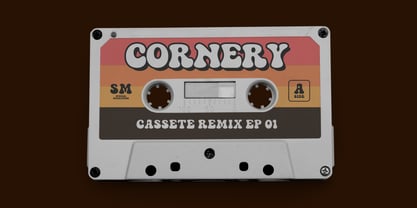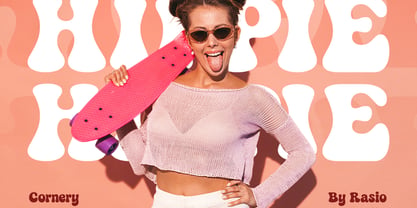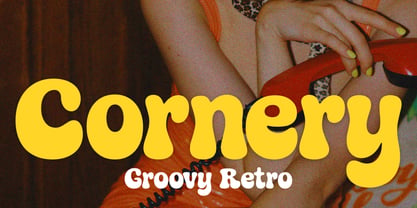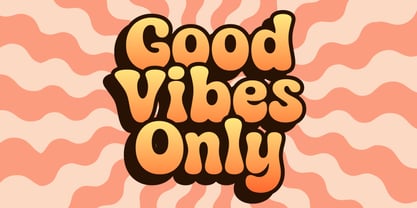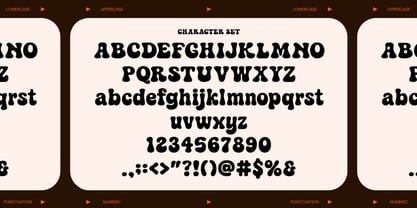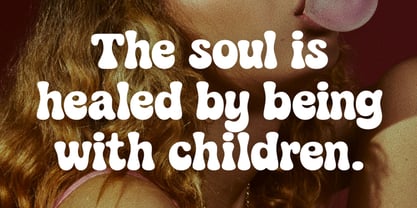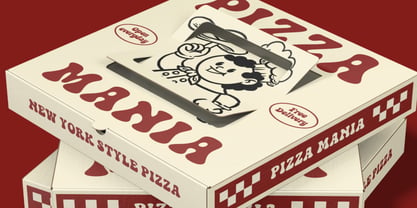
Cornery
by Rasio Studio
The Cornery Font Family was designed by Fajar Indra and published by Rasio Studio. Cornery contains 1 styles. More about this family
Cornery Groovy Retro Font revives the playful spirit of the ’70s with chunky curves, bold proportions, and smooth rounded edges. Its bubbly letterforms exude warmth and nostalgia while maintaining strong readability, perfect for designs that celebrate fun and creativity. Cornery captures the charm of vintage pop culture — vibrant, expressive, and full of personality. Complete with uppercase, lowercase, numbers, and punctuation, this typeface brings a groovy retro flair to posters, packaging, branding, and social media graphics.
Designers: Fajar Indra
Foundry: Rasio Studio